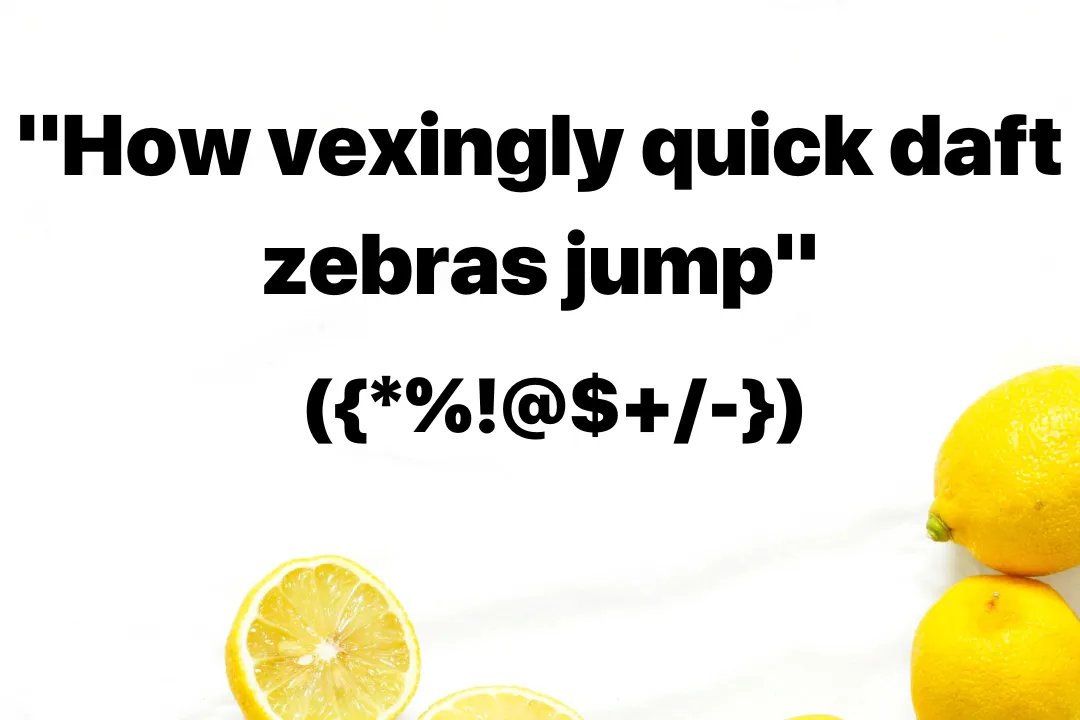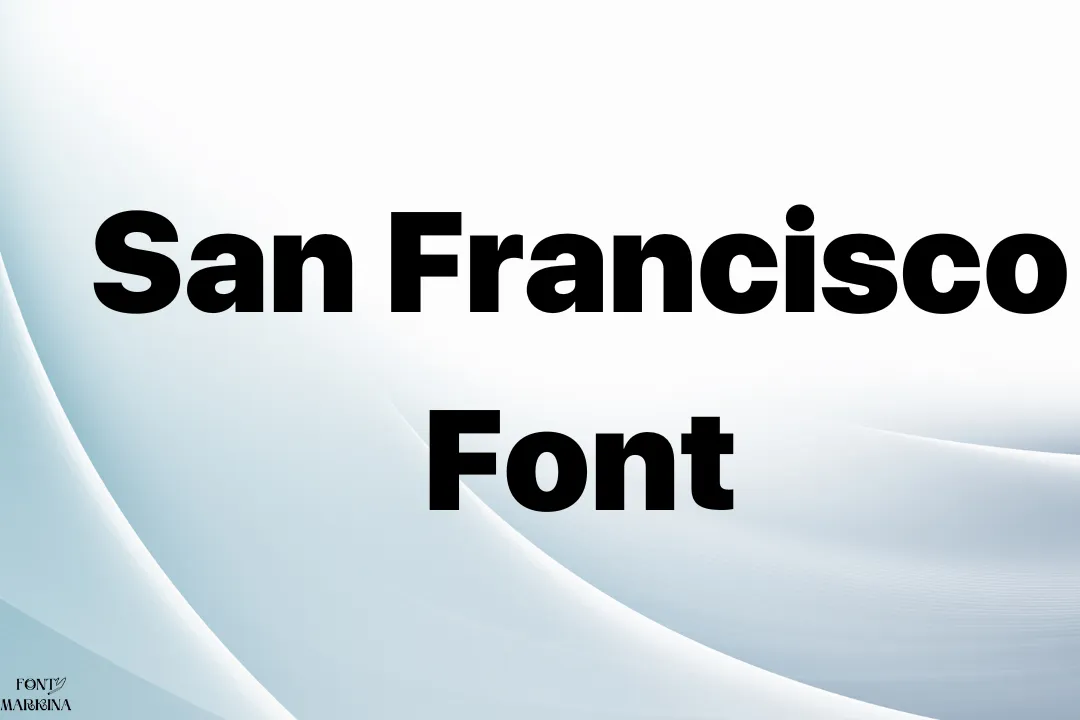
We are consulting a modern neo-grotesque sans serif font is known as San Francisco Font. This font has 5 weights and 12 styles. It comes in different variations including condensed and Expanded. The founder of this fantastic look font is Apple inc. This unique font was updated for the first time in November 2014.
The heavy italic and semibold italic style of this font are suitable for use in bold and italic titles that increase the attraction of your design. By creating a strong combination of this font with adlinnaka font, you can make an outstanding design for your audience.
Where can you use San Francisco Font?
You can use this modern display look in sans serif font for different languages. This font is suitable for use in the magic keyboard. It is mostly used in different apple products and phones. This unique font is great for use in website developing and designing purposes.
It is suitable for use in text design and official graphic design purposes. This eye-catching font is used for extra-bold graphic headlines design and wall murals designs. You can utilize this modern font for page border designs, thumbnails for different videos, and letterhead design purposes.
San Francisco Font View
| Name | San Francisco Font |
| Designer | Apple inc |
| Style | Sans Serif |
What font is San Francisco?
San Francisco is a sans serif-type family with different styles and weights.
Is San Francisco Font same as Helvetica?
Absolutely! both typefaces are the same with styles and multiple features.
What font is closest to San Francisco Font?
Aramis Font is the best alternative to this modern look font that is a famous and unique sans serif typeface.